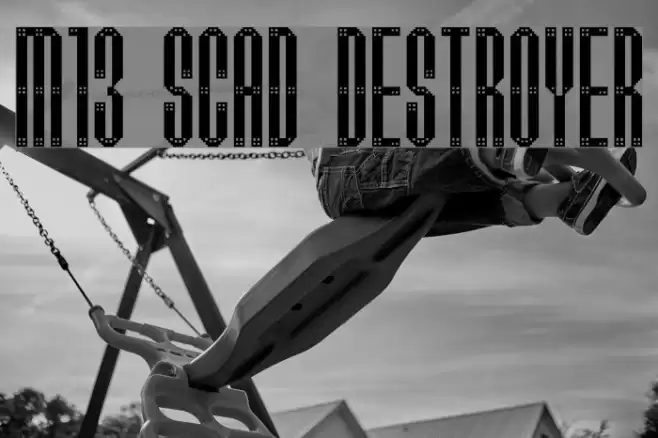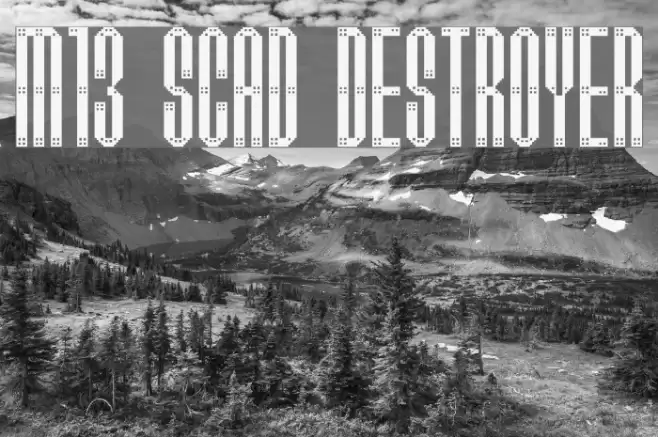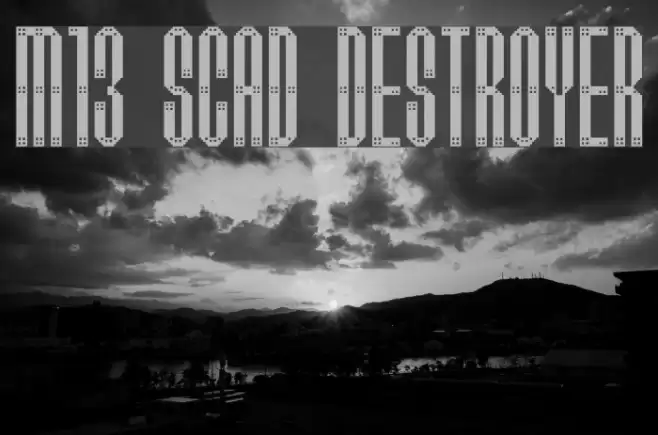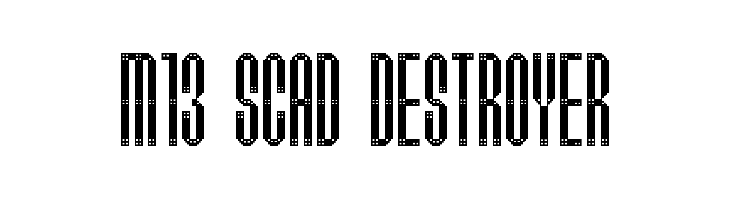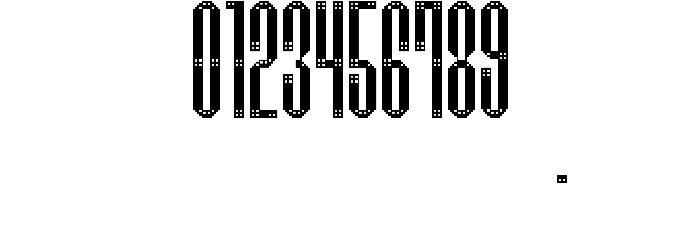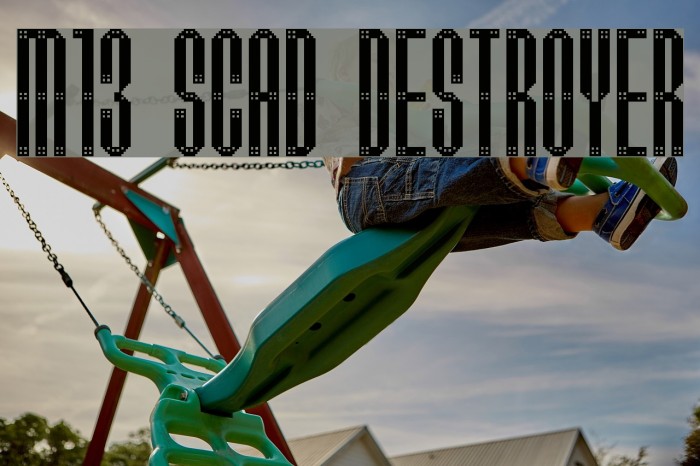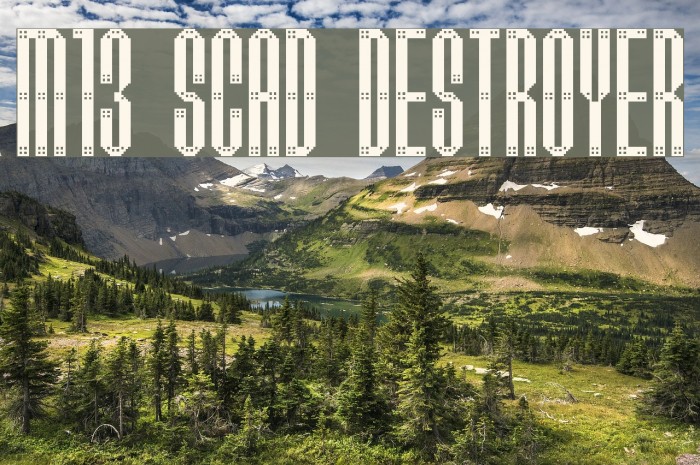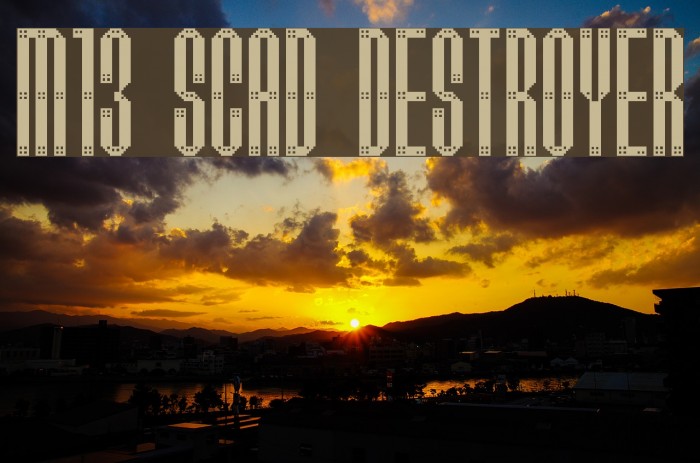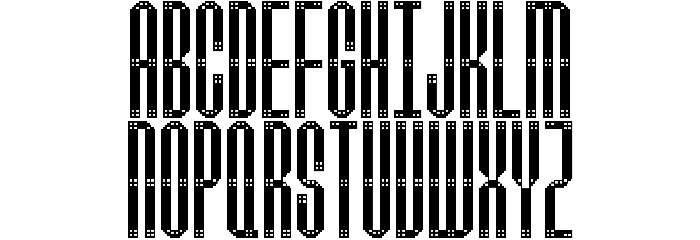
M13_SCAD DESTROYER Font
This font features a bold, geometric design with a strong emphasis on vertical lines. The characters are constructed with a consistent width, creating a monospaced appearance. The uppercase and lowercase letters share a similar height, enhancing the uniformity of the typeface. The numbers follow the same structural design, maintaining the overall aesthetic. The font's style is reminiscent of digital or technological themes, with a modern and futuristic feel. The sharp edges and clean lines make it suitable for projects that require a strong visual impact.
- Proposed Projects: Ideal for technology branding, digital interfaces, video game titles, and futuristic posters.